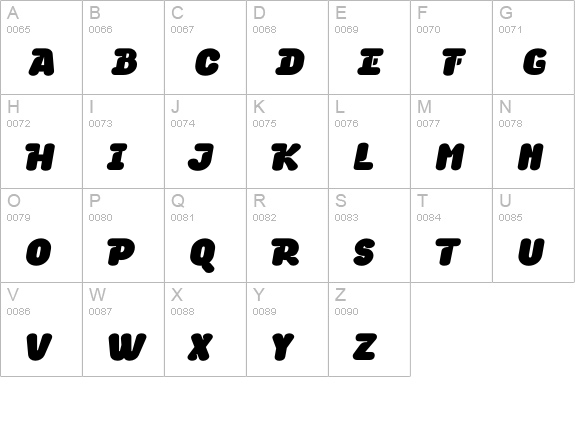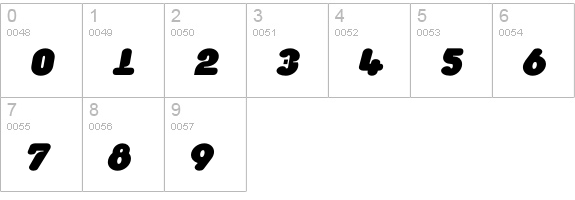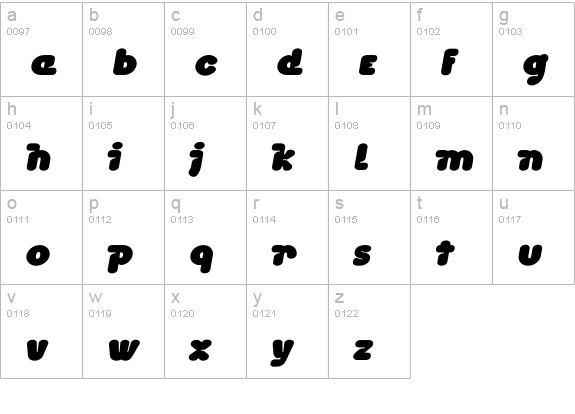
Blocker-DubLowFive Font Details
Introducing Blocker-DubLowFive font - a bold and playful typeface that exudes energy and creativity. With its unique blend of blocky letters and low slung design, this font is perfect for making a statement in your designs. Whether you're working on branding, posters, or social media graphics, Blocker-DubLowFive will add a dynamic touch to your projects. And the best part? Blocker-DubLowFive is completely free to download at FontsMarket.com! That's right, you can access this eye-catching font at no cost, making it a must-have addition to your font collection. So why wait? Elevate your designs with Blocker-DubLowFive font today!